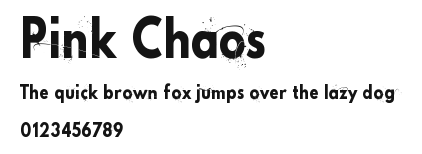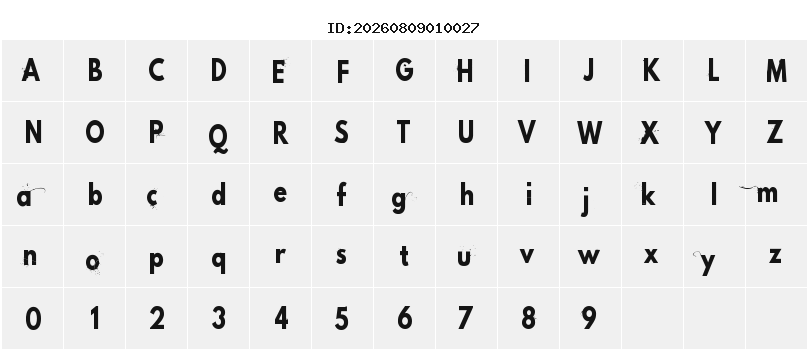
Pink Chaos Preview
• Font Name: Pink Chaos
• Designer: Juha Korhonen
About Pink Chaos.ttf
Pink Chaos.ttf is a modern, elegant sans-serif font designed for ultimate readability and visual harmony. Perfect for branding, headlines, web design, and print materials.